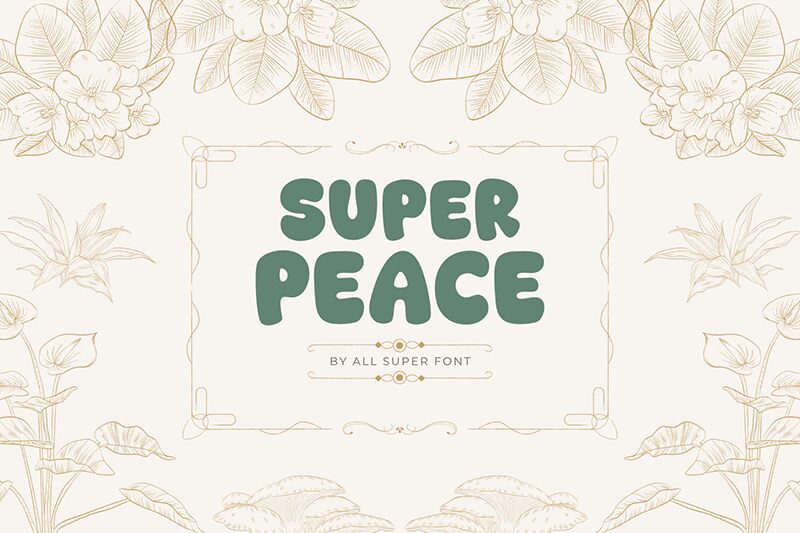
Super Peace
Super Peace font by fsuarez913 is a playful display font with a cartoon style and bold weight. It features rounded edges reminiscent of retro sun-faded store signs. Approachable and friendly, the aesthetic presented reflects vintage inspirations that are perfect for capturing attention.
The free cartoon font finds countless design implementations in wine badges, food packaging, children’s books, business cards, artsy posters, apparel prints, website headers footwear branding, stickers tamplates and more.